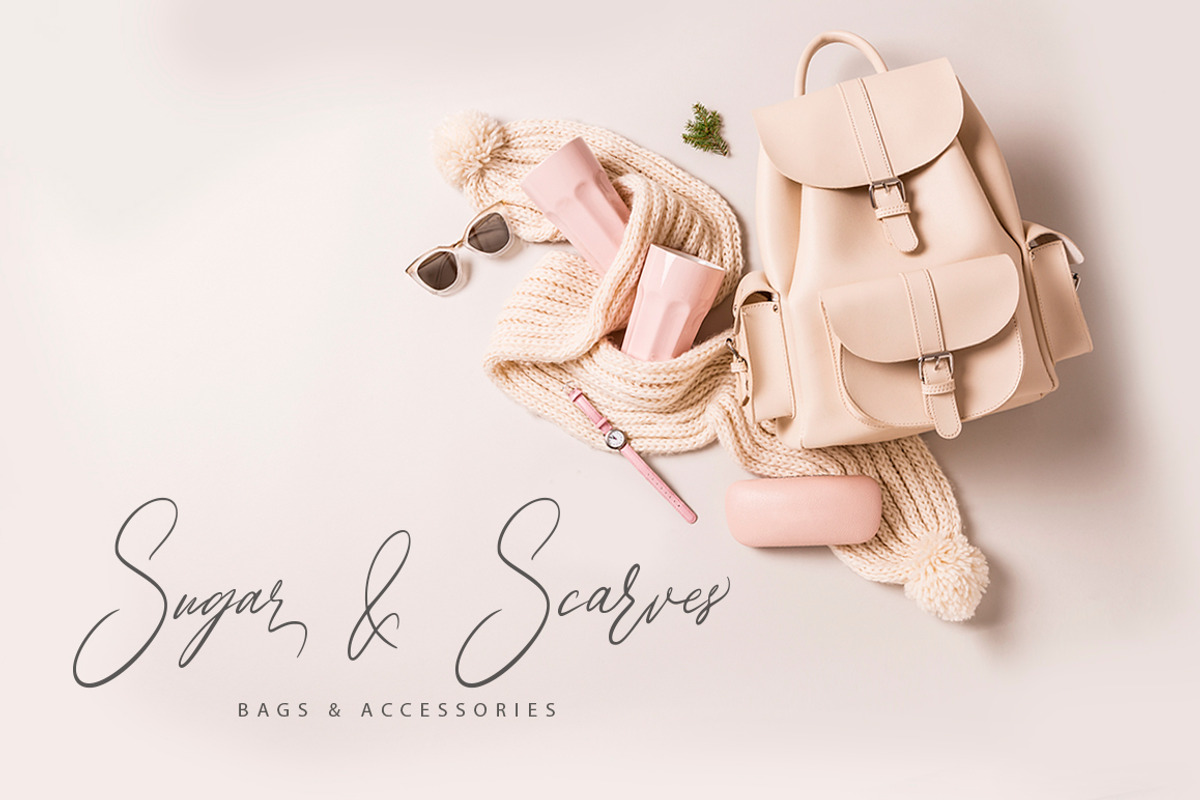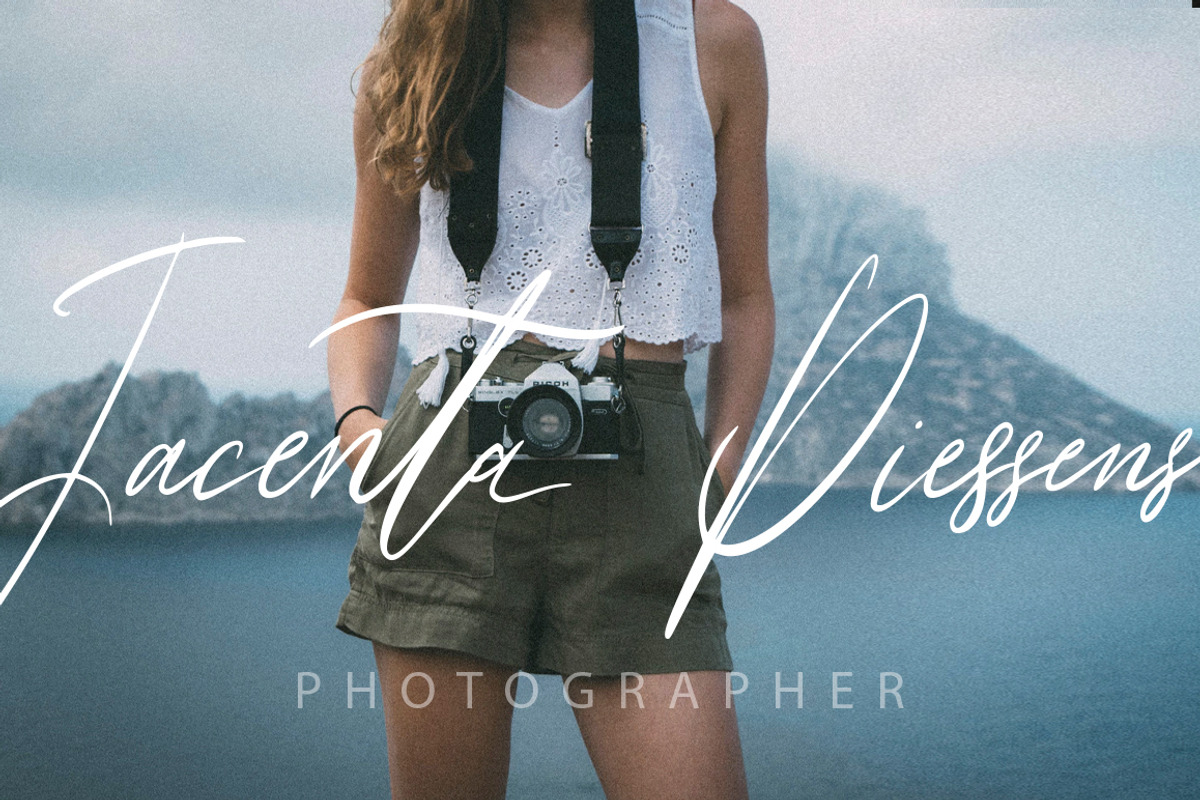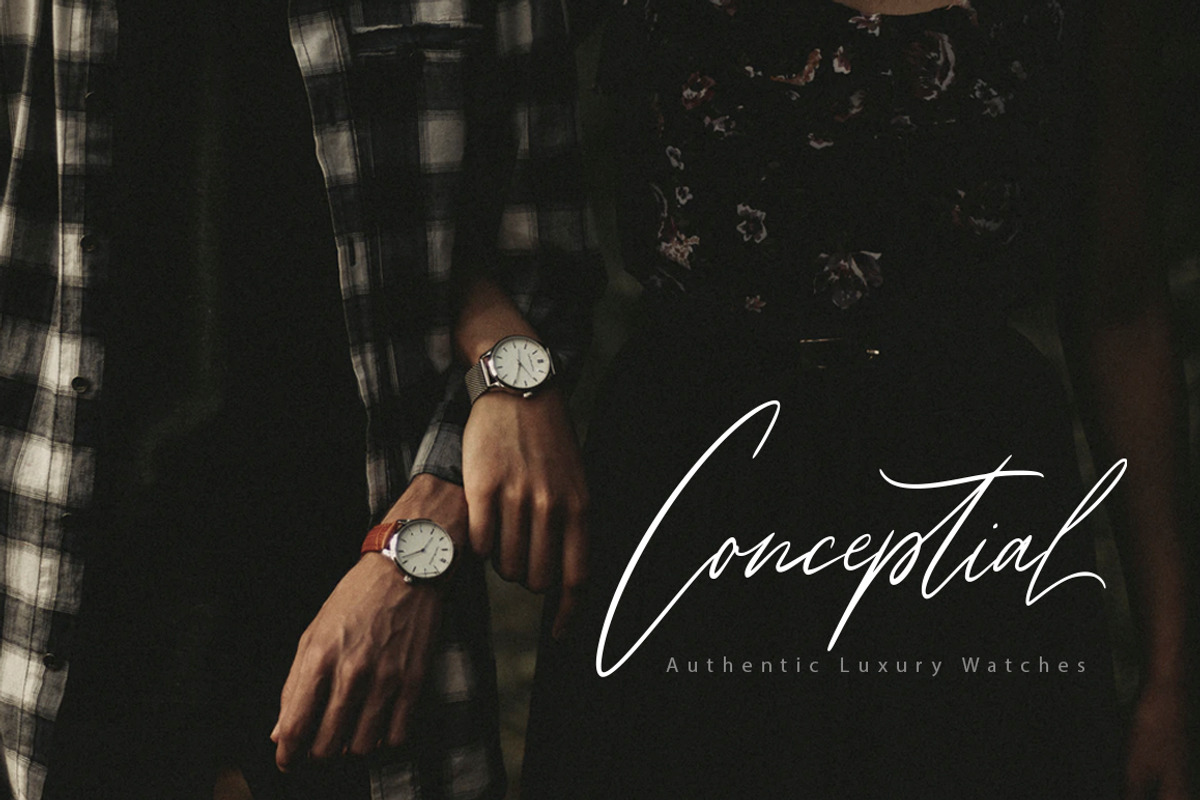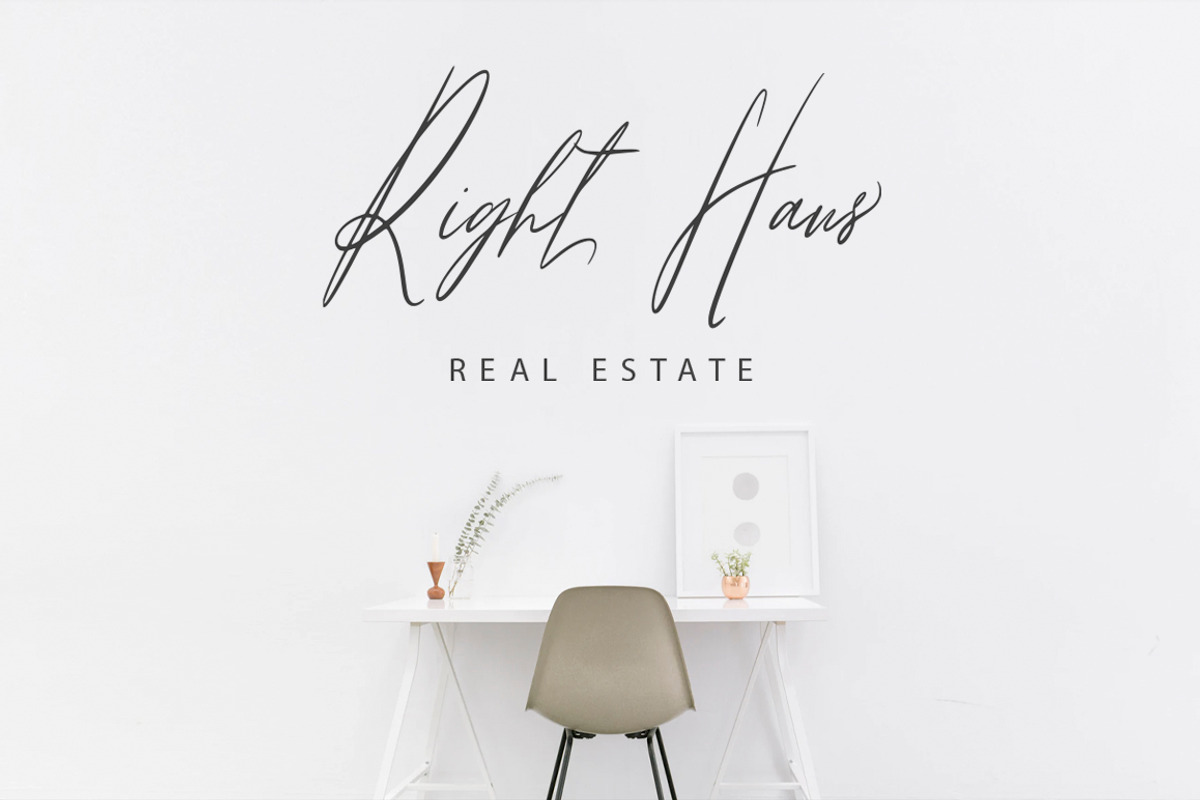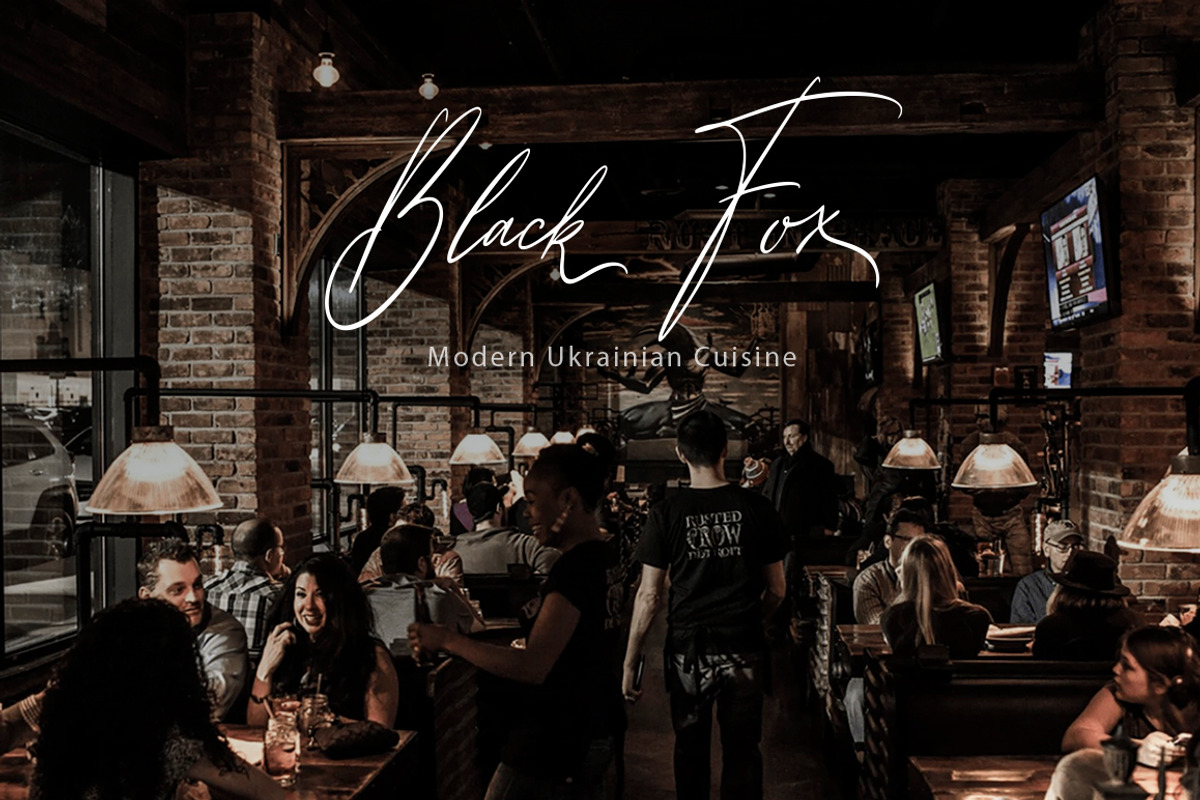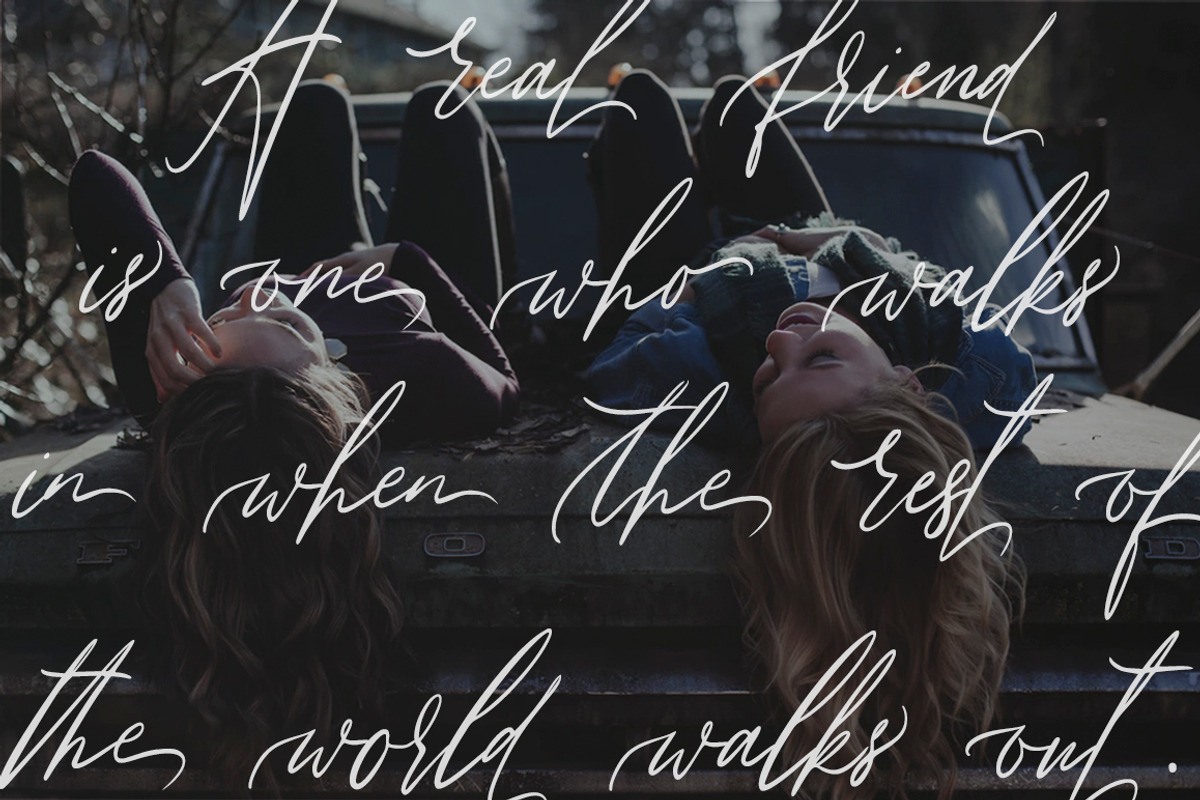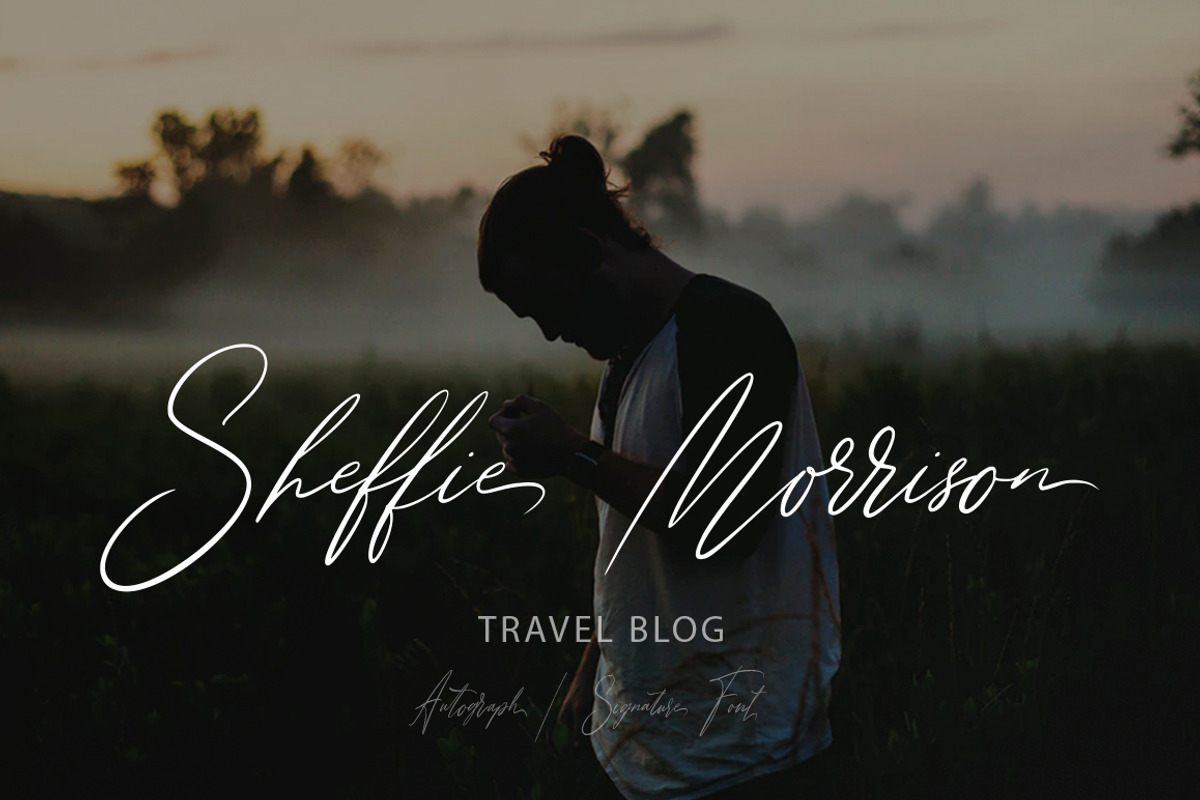
Autograph. Casual signature font.
Introducing my hand drawn signature font with tons of ligatures & initial and final letters – Autograph.
Autograph is a casual hand drawn font, this font perfect for logo, invitation, stationery, wedding designs, social media posts, advertisements, product packaging, product designs, label, photography, watermark, special events or anything and fonts are provided in TTF & OTF formats.